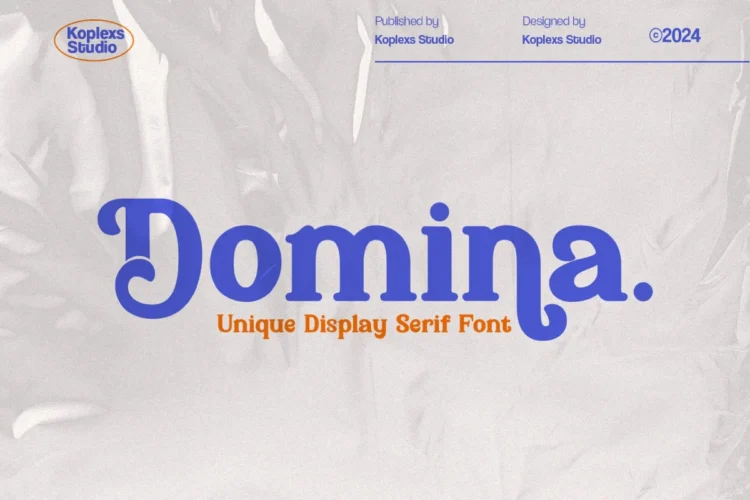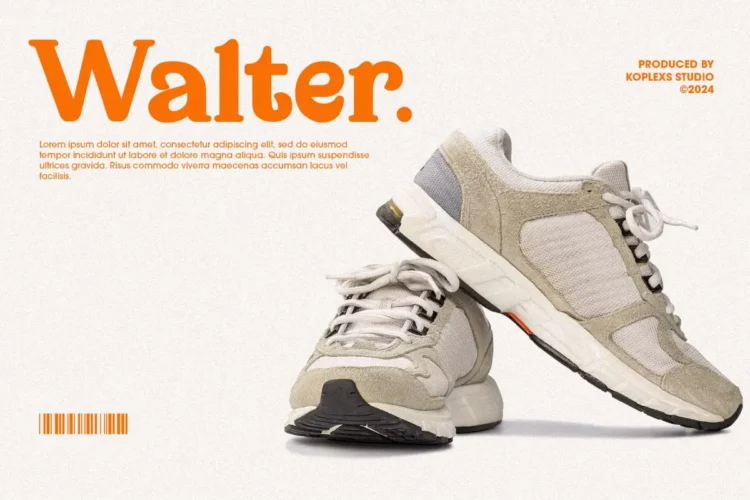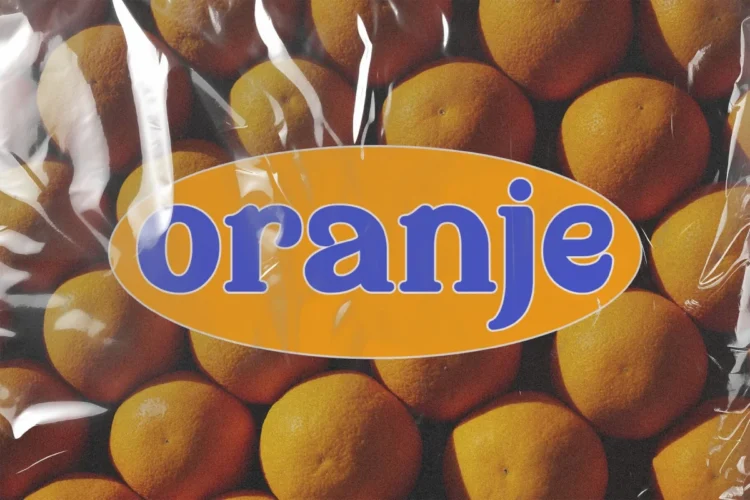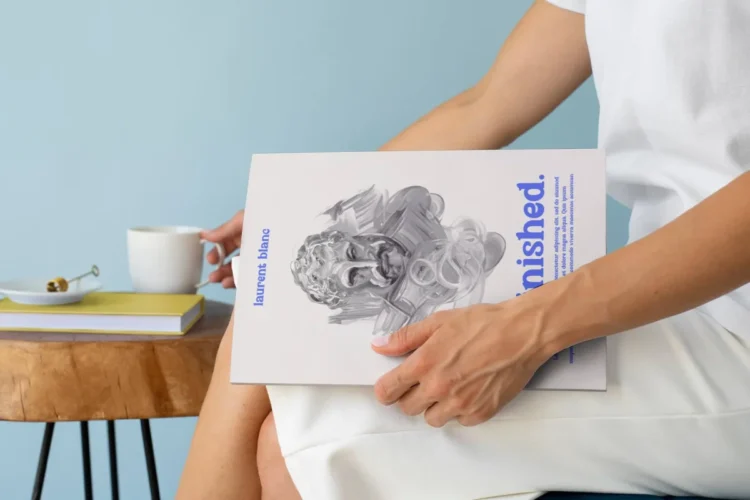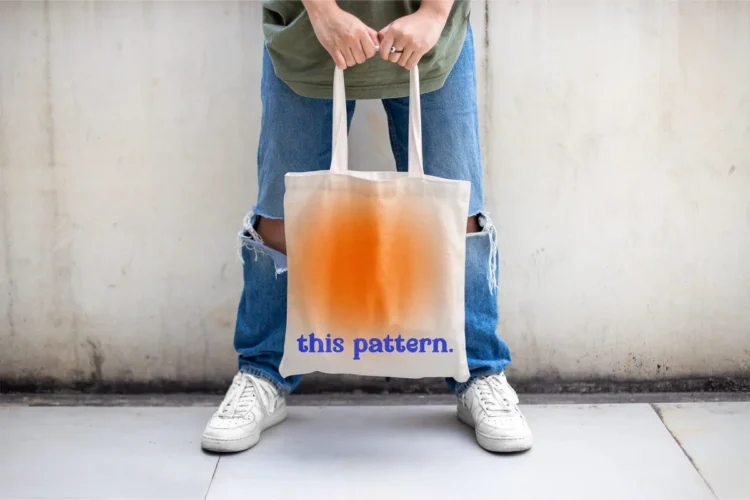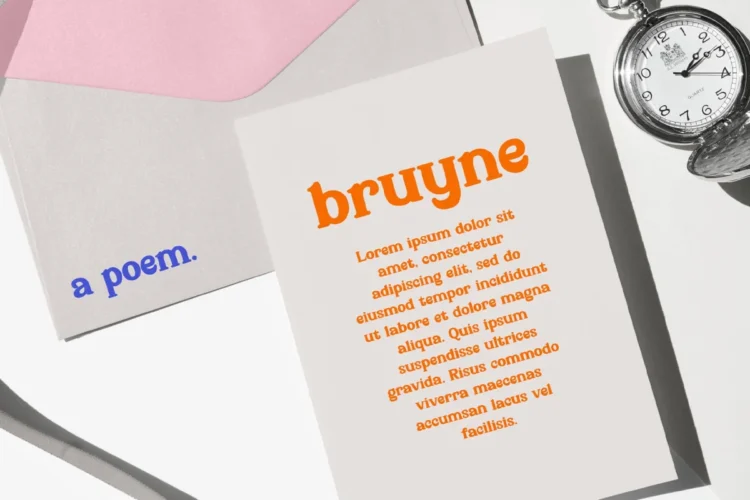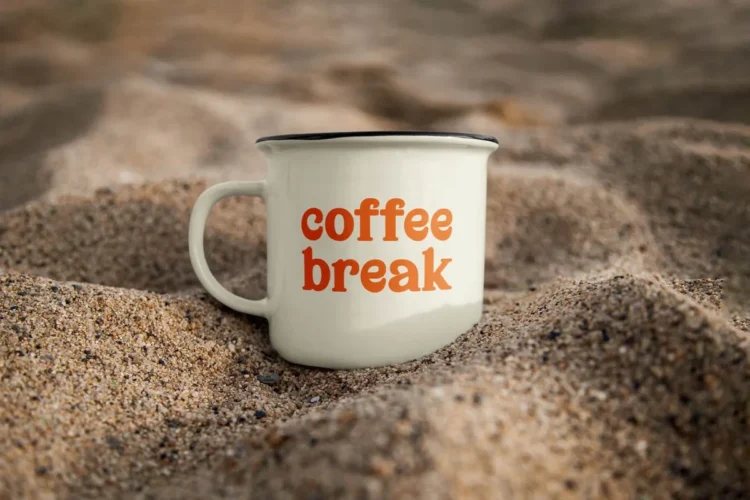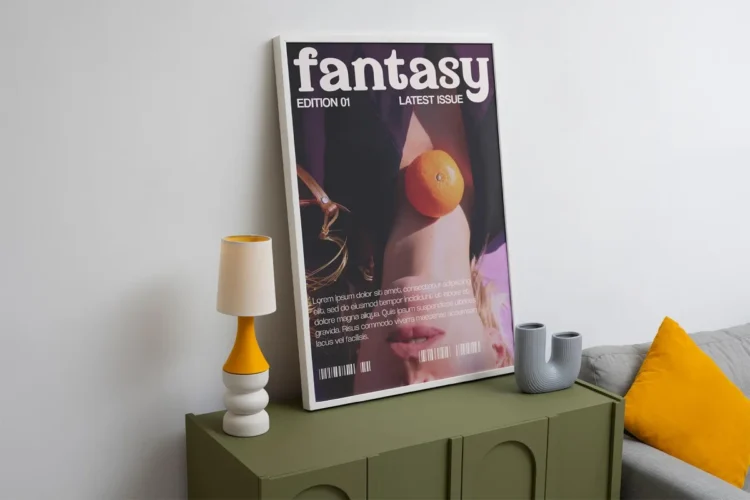
Domina Font – Unique Display Serif Font with Retro, Playful, and Elegant Style
Domina Font is a unique display font that blends playful charm with classic serif elegance. Designed by Koplexs Studio, this modern font brings together the warmth of a retro font and the sophistication of an aesthetic font making it a truly cool font for designers and brands.
With beautifully crafted alternates and ligatures, Domina Font offers smooth curves, bold contrast, and distinctive terminals that make every headline shine. Its versatility makes it a goods font, branding font, and cosmetic font perfect for both luxury and creative applications.
Domina Font is versatile and works beautifully for :
- Branding and Logos – Elevate your brand with timeless personality.
- Packaging Design – Great for cosmetic, food, and fashion labels.
- Editorial Use – Ideal as a headline font or cover font for magazines.
- Posters & Ads – Make a bold impact with this display serif font.
- Web & Social Media – A stylish choice for modern, aesthetic designs.
- Print Design – Works beautifully as a classic font for elegant layouts.
Whether you’re crafting a poster font, heading font, or logo font, Domina gives your visuals an elegant, luxury, and memorable touch that stands out effortlessly.